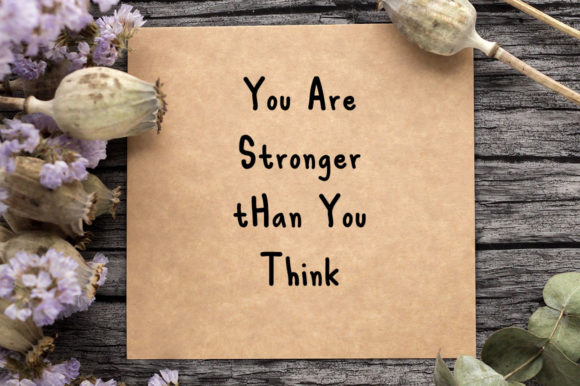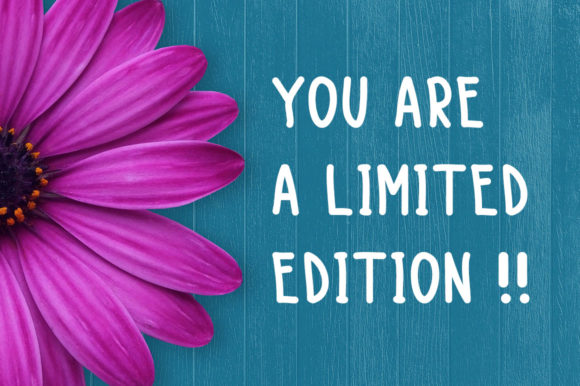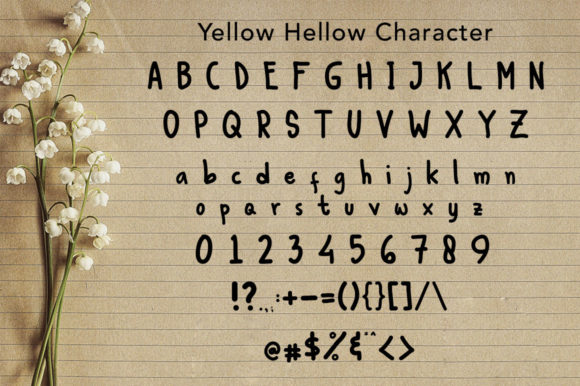
Yellow Hellow Font
About Yellow Hellow Font
Yellow Hellow is a cute and casual handwritten font. Yellow Hellow will look outstanding in any context,
Whether you’re looking for fonts for Instagram or calligraphy scripts for DIY projects, Yellow Hellow will turn any creative idea into a true piece of art!